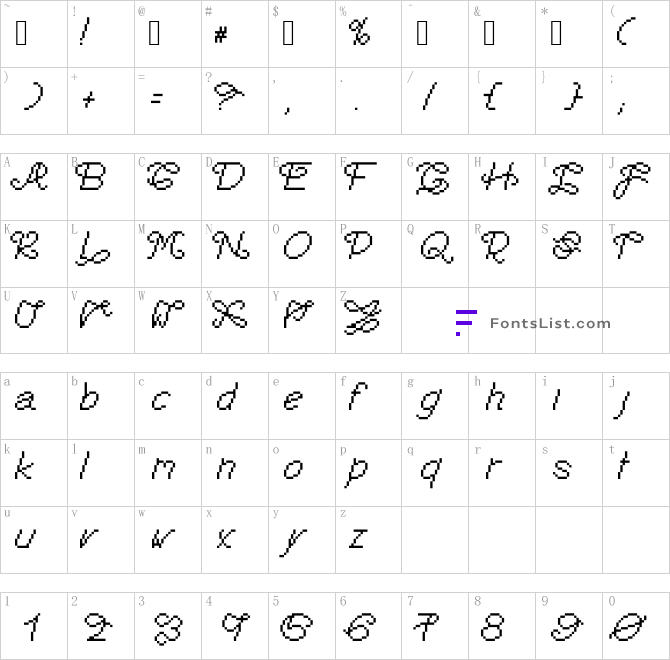
- Font Name:Aphotheotica
Aphotheotica.ttf is a very beautiful artistic font, Aphotheotica.ttf is widely used in the design and printing of various books and pictures,Aphotheotica.ttf has a strong visual impact,Aphotheotica.ttf is a commonly used font in newspapers, magazines and books, and is used in posters, e-commerce Poster design, store design, logo design, font design and other fields.Aphotheotica.